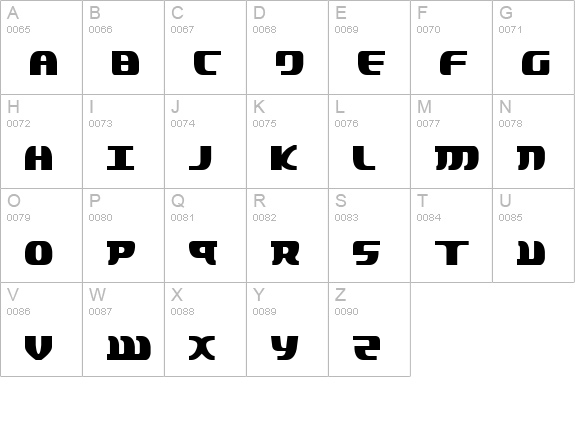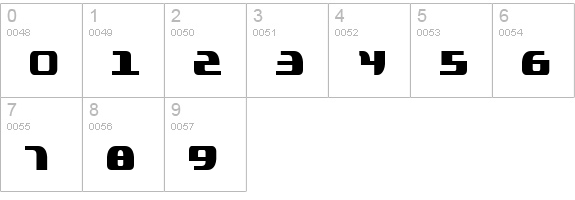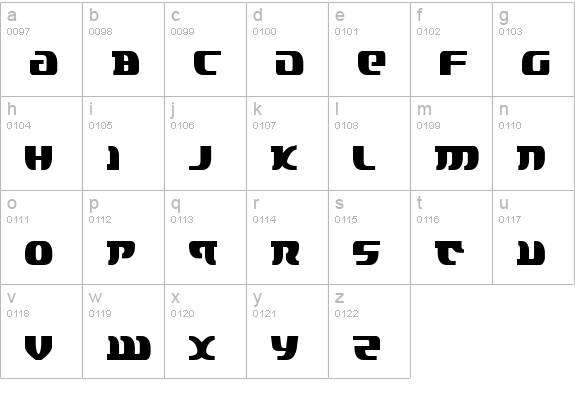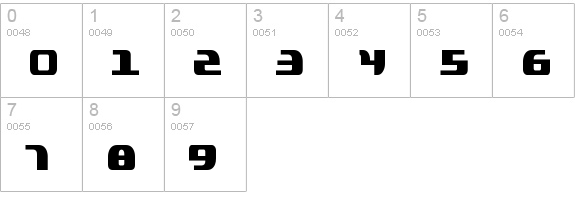
Lord of the Sith Condensed is a distinctive, condensed-width variant in the Lord typeface family \xE2\x80\x94 well suited to design and typography projects.
Lord of the Sith Condensed font is a bold and powerful typeface that exudes strength and authority. With its sleek and modern design, this font is perfect for creating eye-catching headlines, titles, and logos. The condensed style adds a sense of urgency and intensity to any design project. The font features sharp edges and clean lines, giving it a futuristic and avant-garde look. Whether you're designing a poster, website, or branding materials, Lord of the Sith Condensed font will make your text stand out and command attention. Best of all, this font is available for free download at FontsMarket.com. So go ahead and give your projects a touch of dark side sophistication with Lord of the Sith Condensed font today!